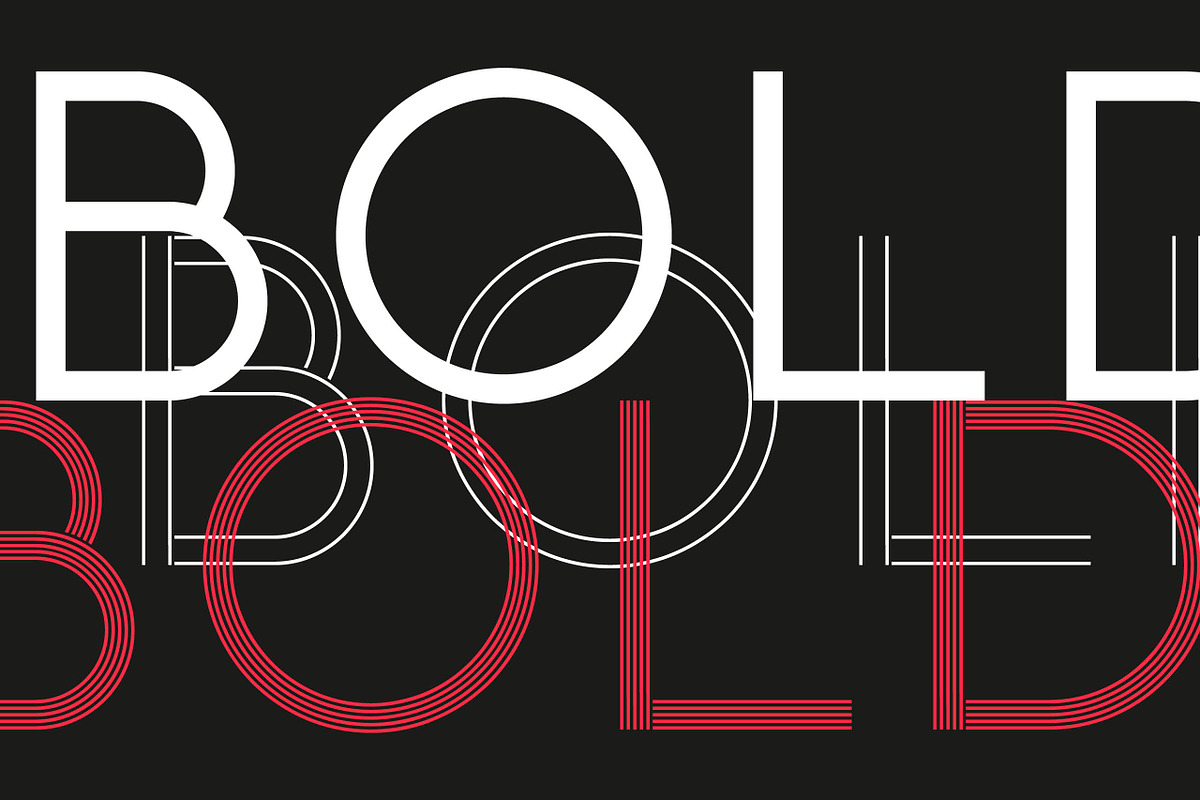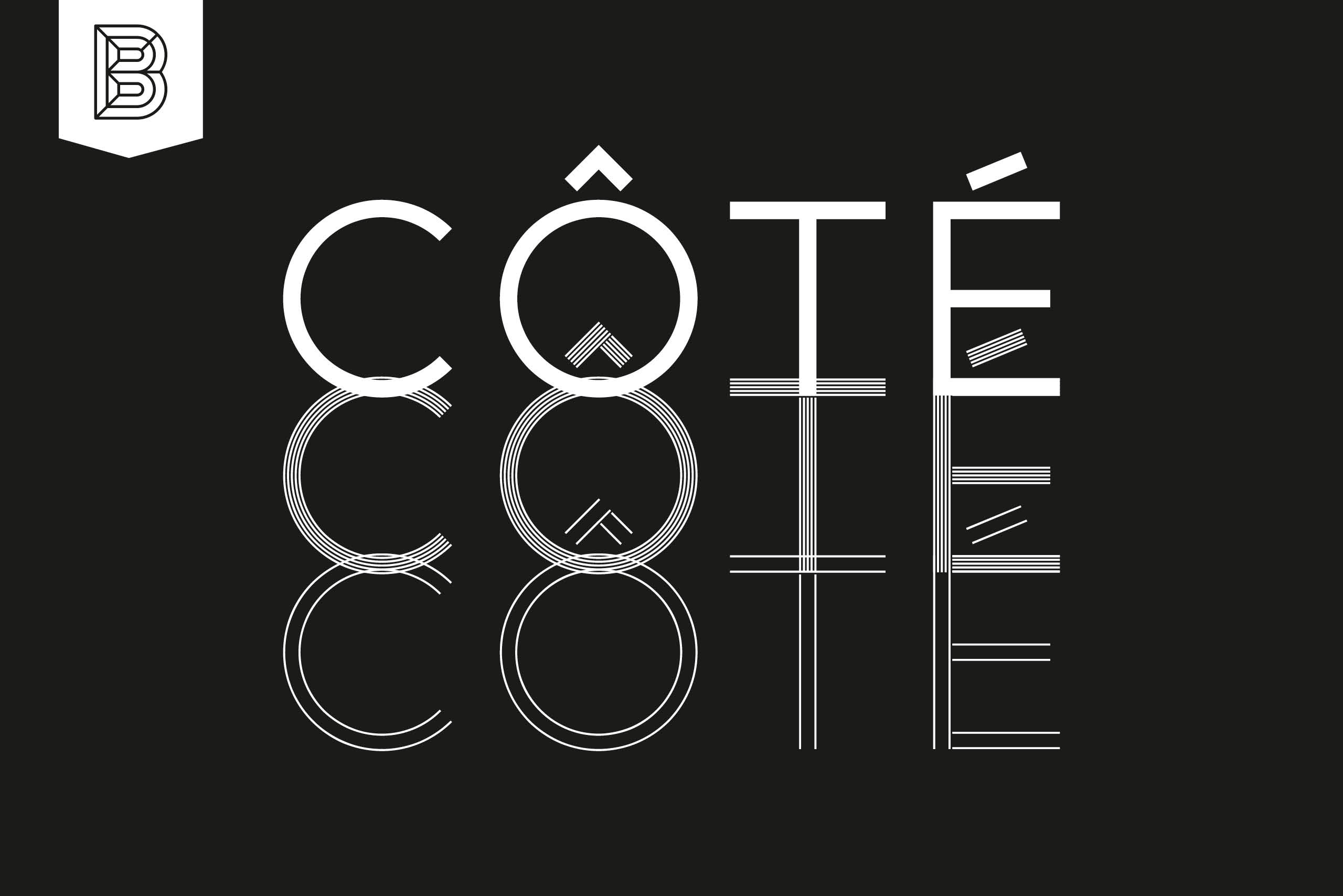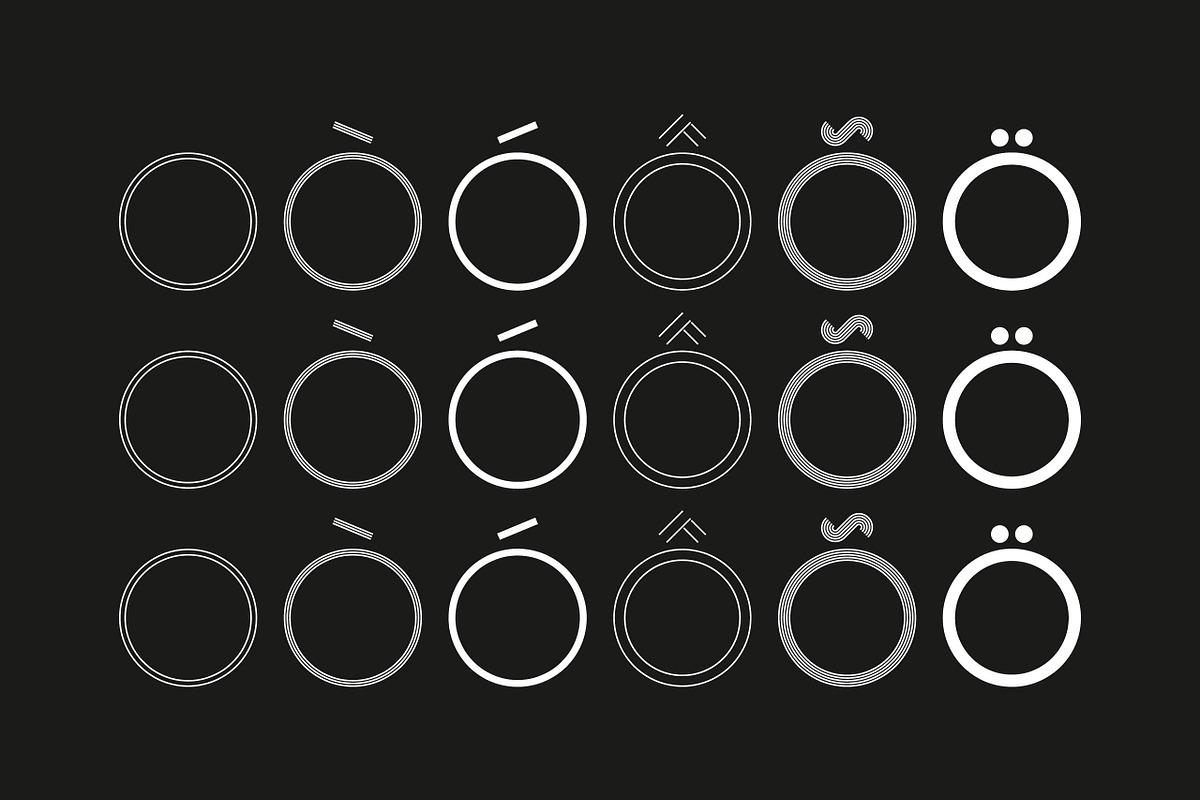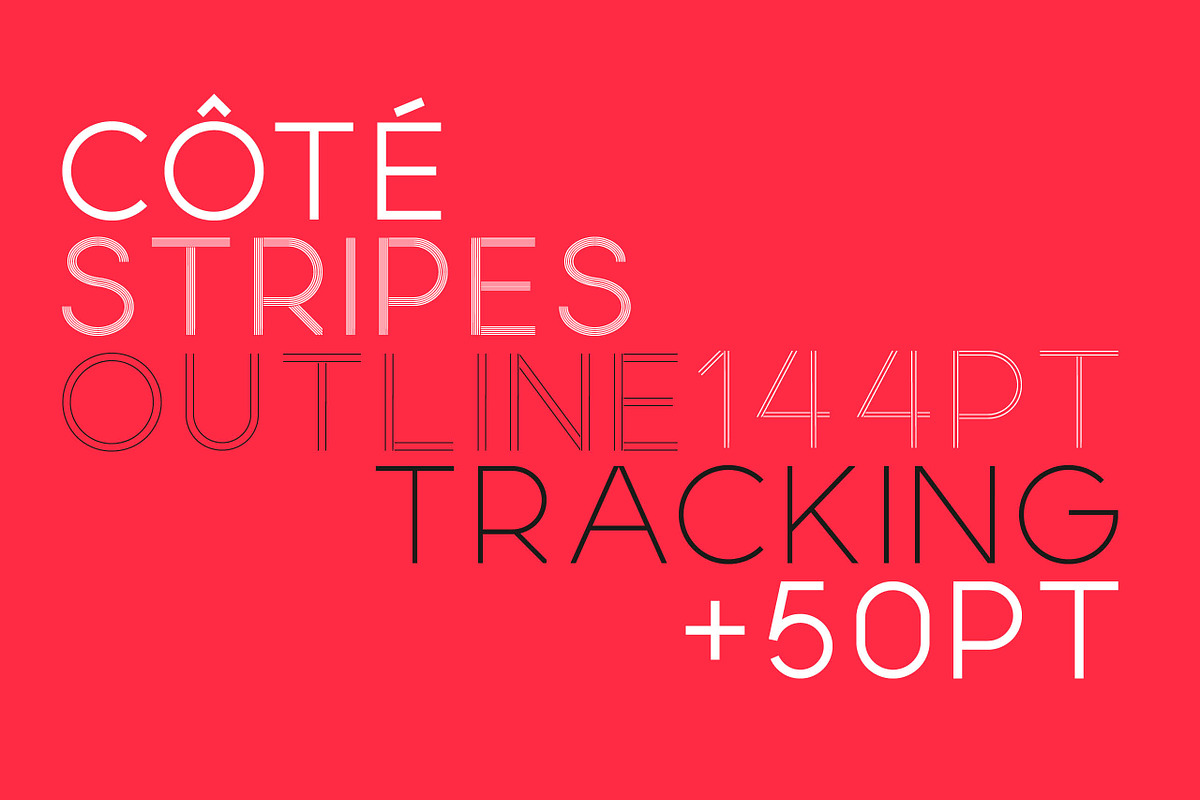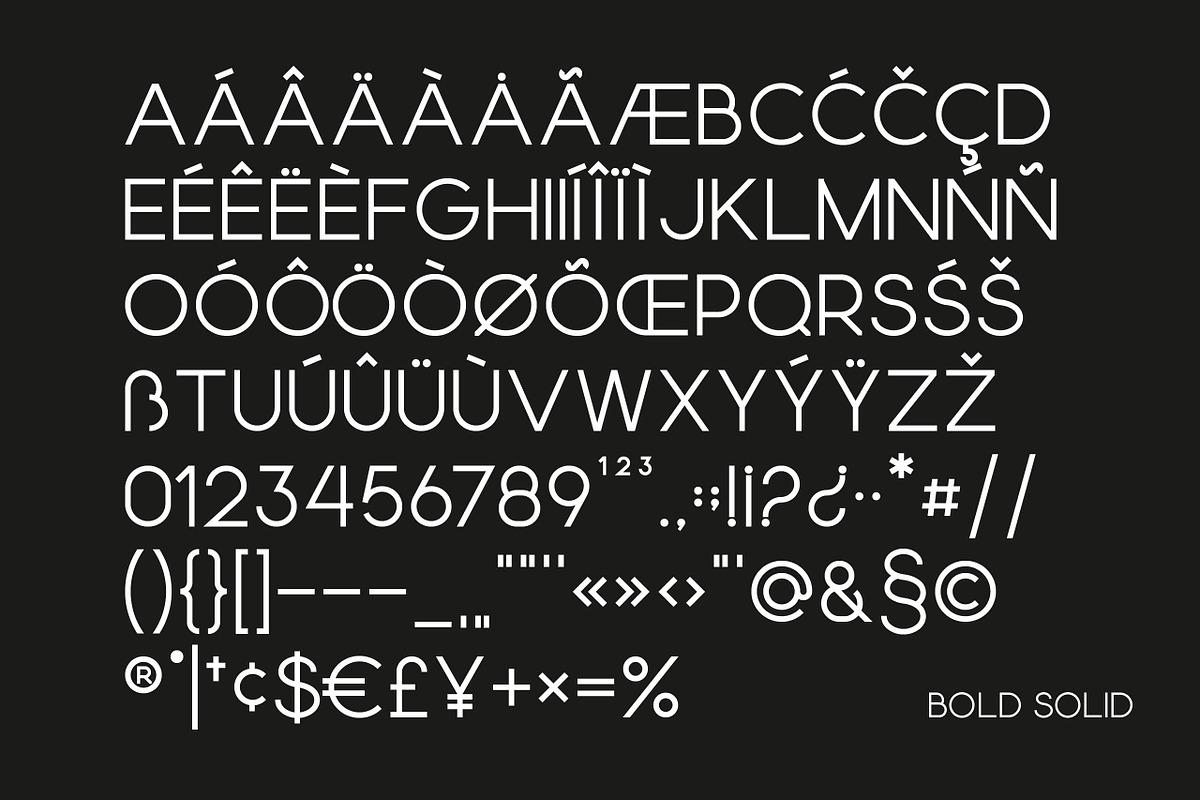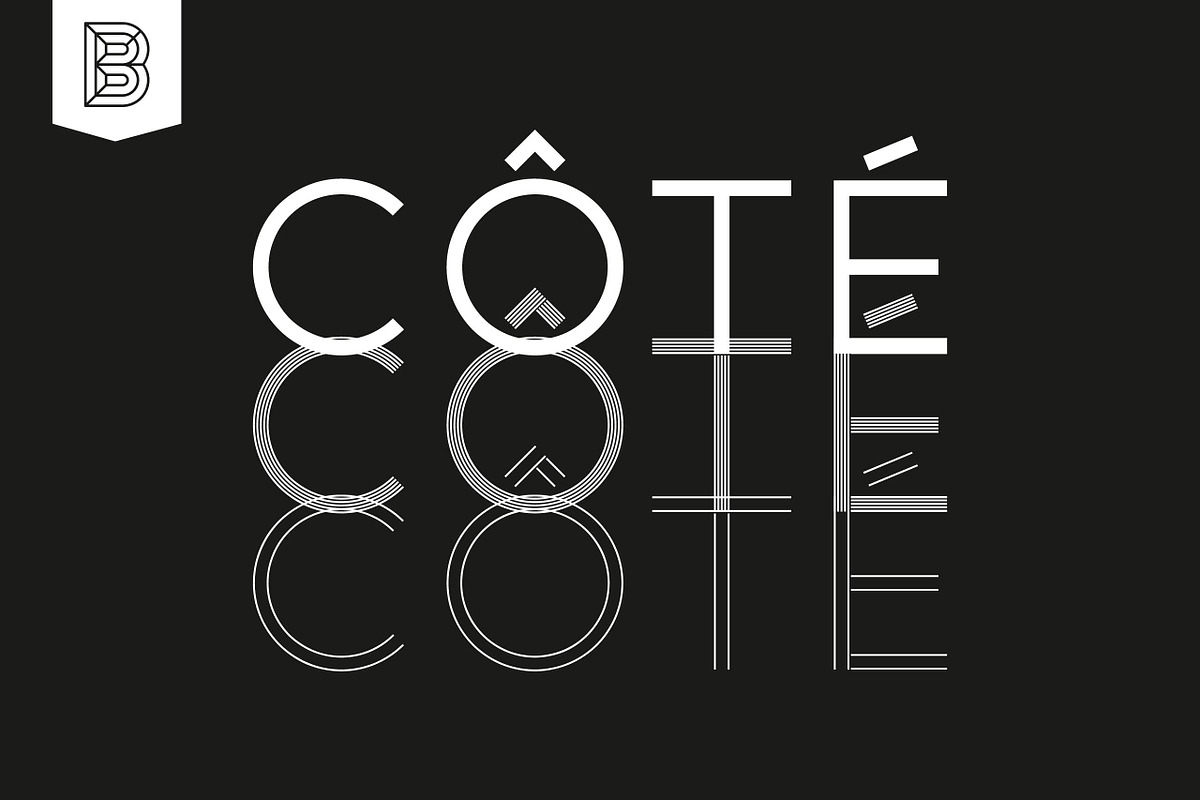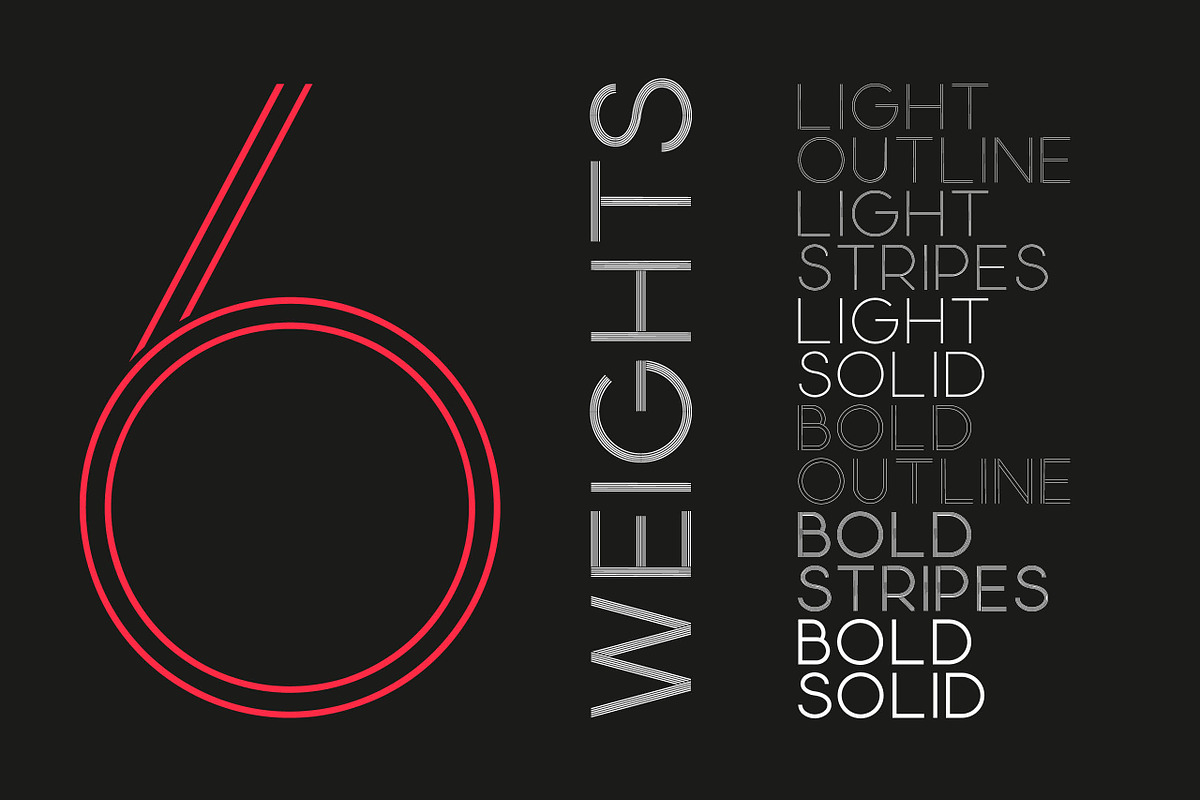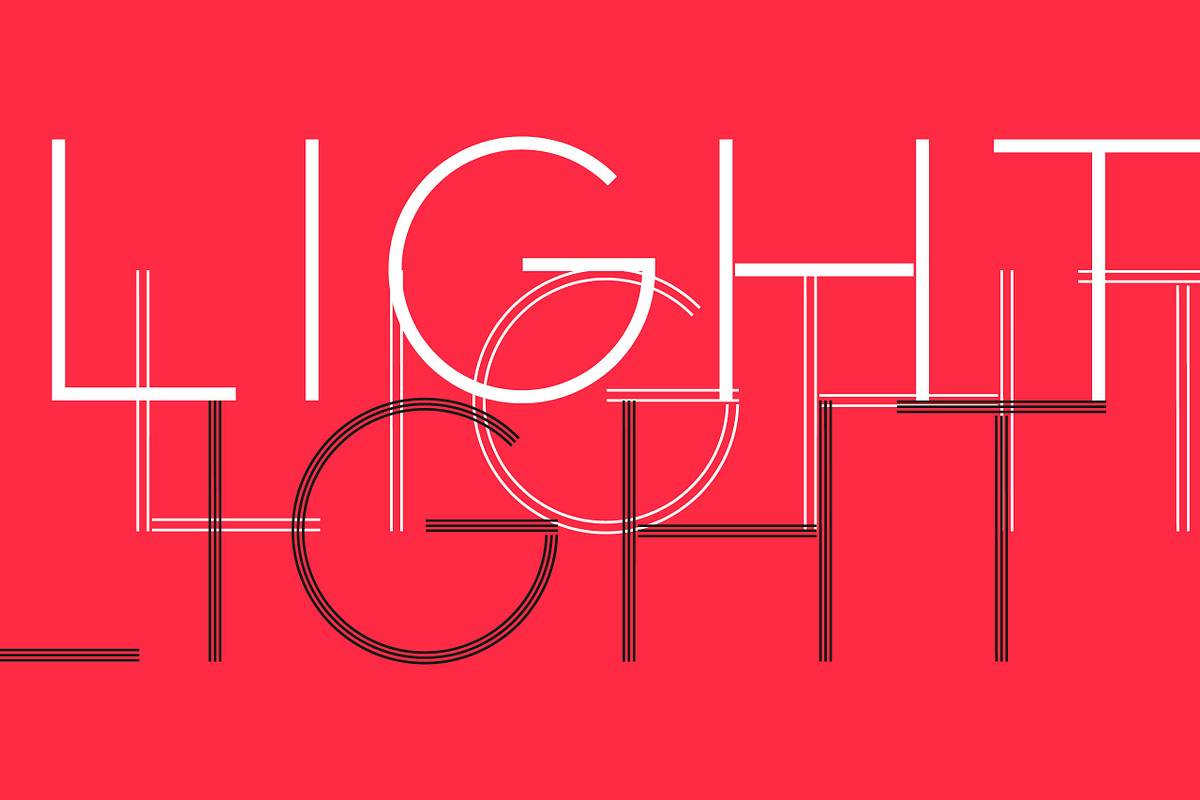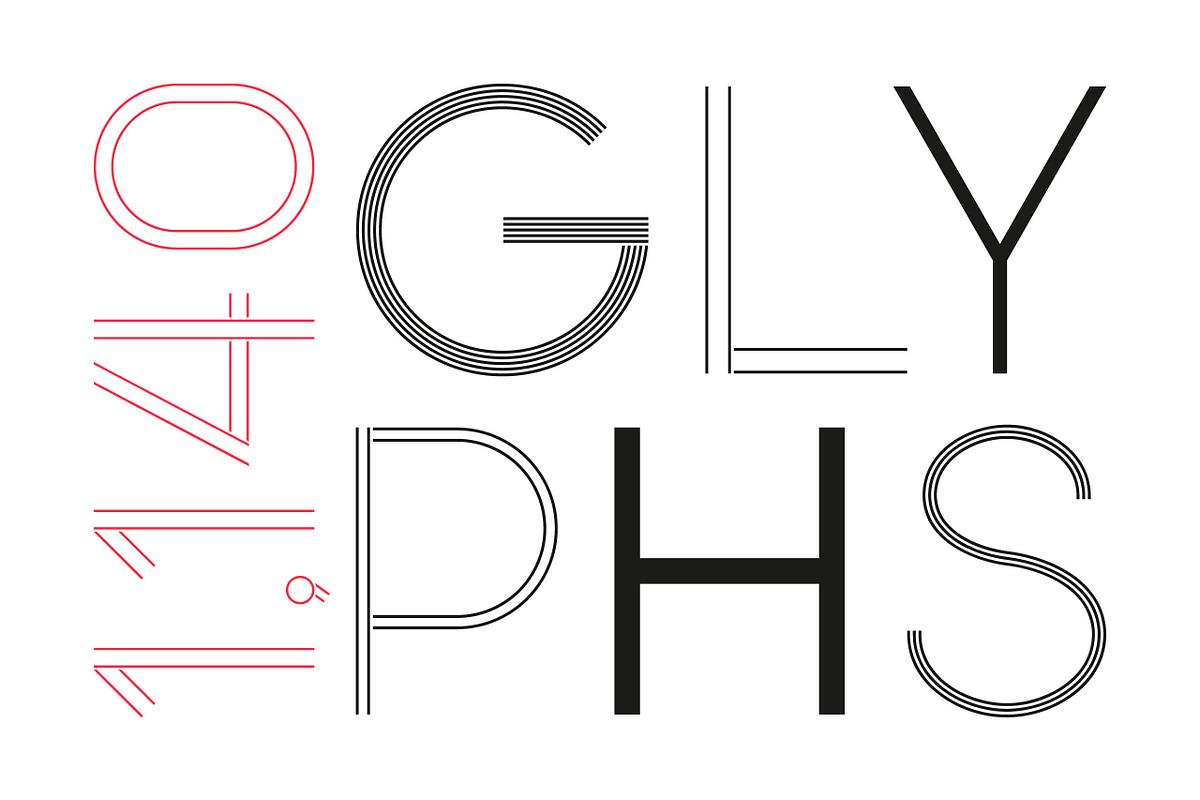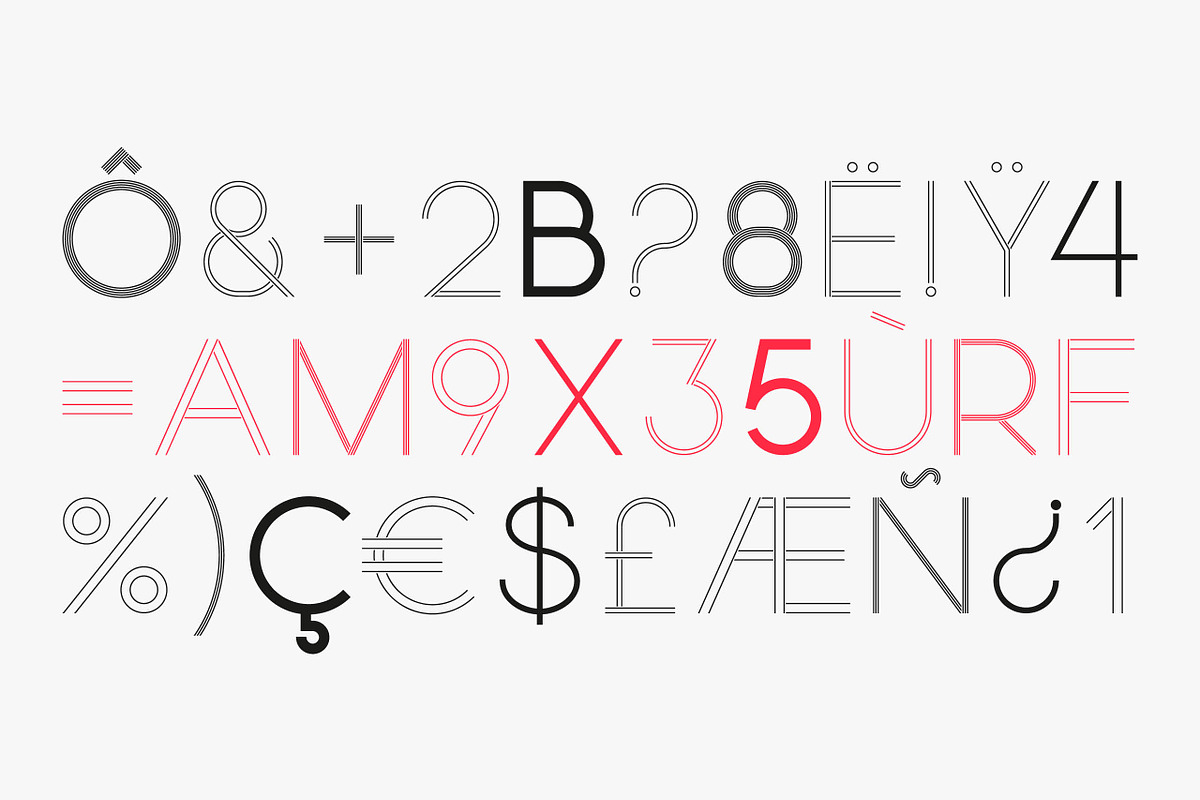
Côté - Typeface
A modern geometric sans serif that comes in 2 weights with 3 styles for each; Solid, Stripes and Outline. Originally designed as a purely striped weight but evolved to more weights to create a fun and playful typeface that can be layered and scaled.